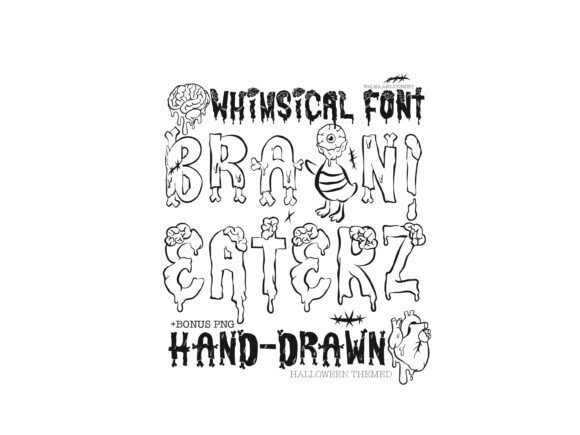
As a designer, you’ve probably experienced that moment when you’re browsing through a font library, and suddenly, the perfect font pops up. It’s as if the universe is telling you, “Yes, this is the one.” For me, that moment came when I stumbled upon the Brain Eaterz Font. I was working on a Halloween-themed project, and this unique zombie-style font spoke to me. Its hand-drawn, dripping letters, gooey green colors, and spooky bones were exactly what I needed to bring my design to life.
The Brain Eaterz Font is more than just a font – it’s a design game-changer. With its PUA-encoded glyphs, swashes, and alternate characters, you’ll have endless possibilities to create creepy yet fun designs. Plus, the included PNG cliparts of brains, bones, hearts, and zombie ducks will add an extra layer of character to your work. Whether you’re designing T-shirts, party invitations, or digital artwork, this font is sure to help you stand out from the crowd.
Brain Eaterz Font Key Features
- Font Family: Brain Eaterz Font is a unique, hand-drawn font designed to evoke a sense of horror and the macabre.
- Unique Characteristics: Brain Eaterz Font features a distinctive, hand-drawn style with bold lines, irregular shapes, and a distressed texture, giving it a unique and eerie feel.
Brain Eaterz Font Review
- ✨ Unique design: The Brain Eaterz font has a truly one-of-a-kind aesthetic, perfect for making a statement in designs that need a bit of edge.
- ✨ Strong bold weights: The font’s bold weights are incredibly bold and attention-grabbing, making them perfect for headings and titles.
- ✨ High legibility: Despite its quirky design, the font is surprisingly legible, even at smaller font sizes.
- ⚠️ Limited language support: Unfortunately, the Brain Eaterz font only supports a limited number of languages, which may be a concern for designers working on international projects.
- ⚠️ Not suitable for body text: While the font is great for headings and titles, it’s not ideal for large blocks of body text, where readability is key.
Overall, I think the Brain Eaterz font is a great addition to any designer’s toolkit. While it has some limitations, its unique design and strong bold weights make it perfect for projects that need a bit of flair. Just be sure to use it sparingly and in the right context!
The Brain Eaterz font is a bold, edgy font that is perfect for creating attention-grabbing designs. Use it for:
1. Headlines and titles.
2. Emphasis and emphasis text.
3. Grunge or punk-inspired designs.
Remember to use the Brain Eaterz font in moderation, as it can be overwhelming if used too much.